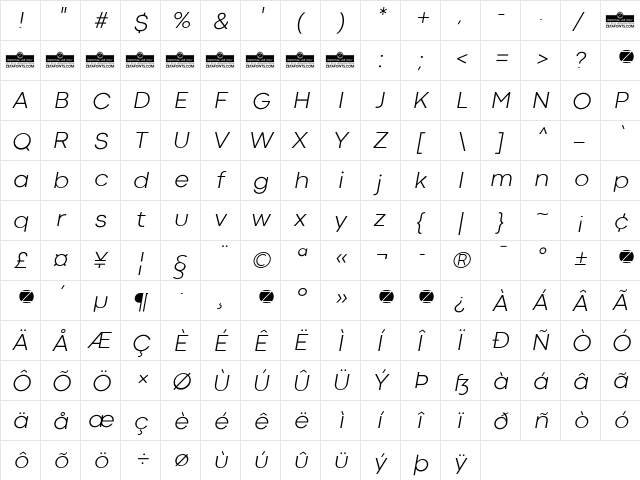
Codec Cold Light Italic Font Preview
| Foundry | Cosimo Lorenzo Pancini & Francesco Canovaro |
| Designer | Cosimo Lorenzo Pancini & Francesco Canovaro |
Design Context for Codec Cold Typeface
Codec Cold brings the precise, column-aligned rhythm of monospaced typography to designs that value technical clarity and systematic order. Its italic angle brings a sense of urgency and motion to the letterforms. The delicate stroke weight brings airiness and refinement to layouts.
A natural fit for code editors, technical documentation, developer-focused branding, and terminal-inspired UI.